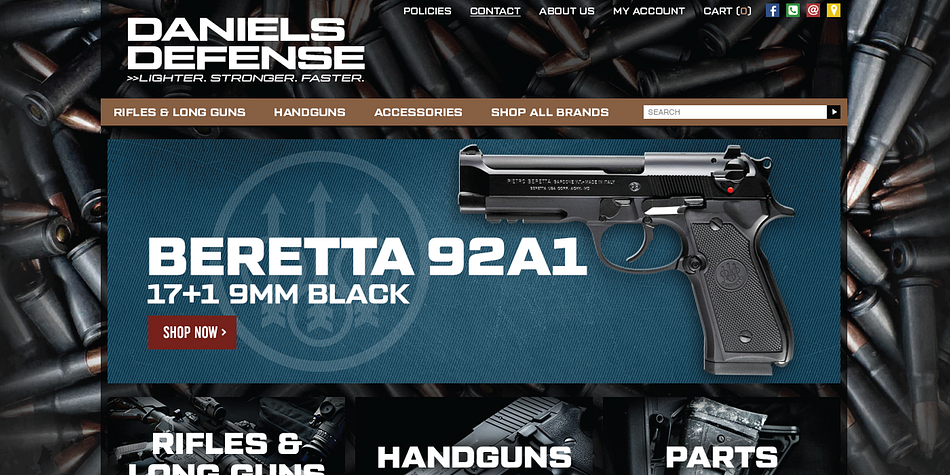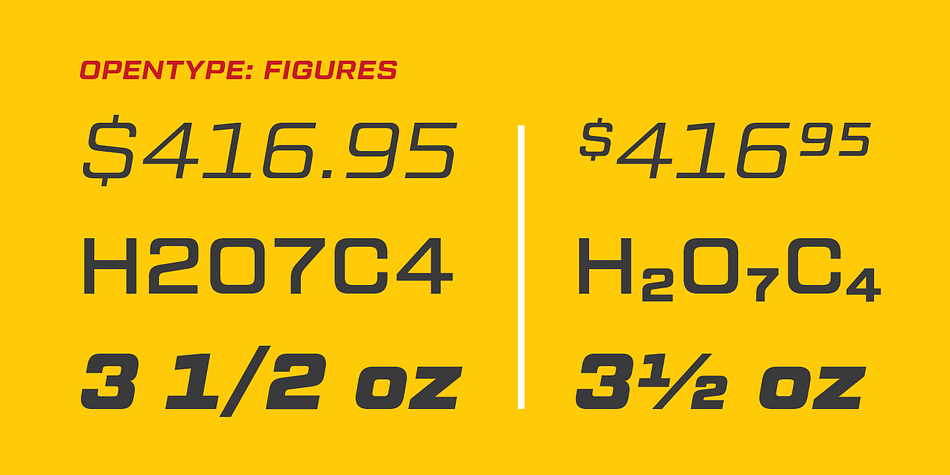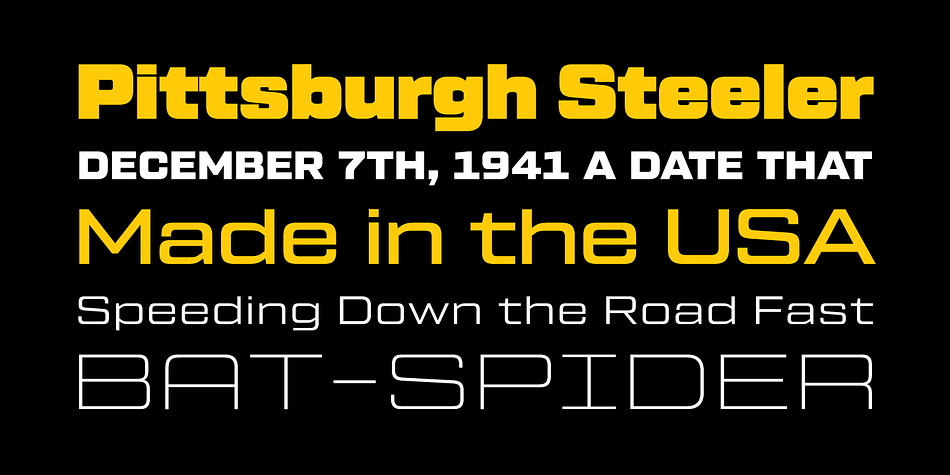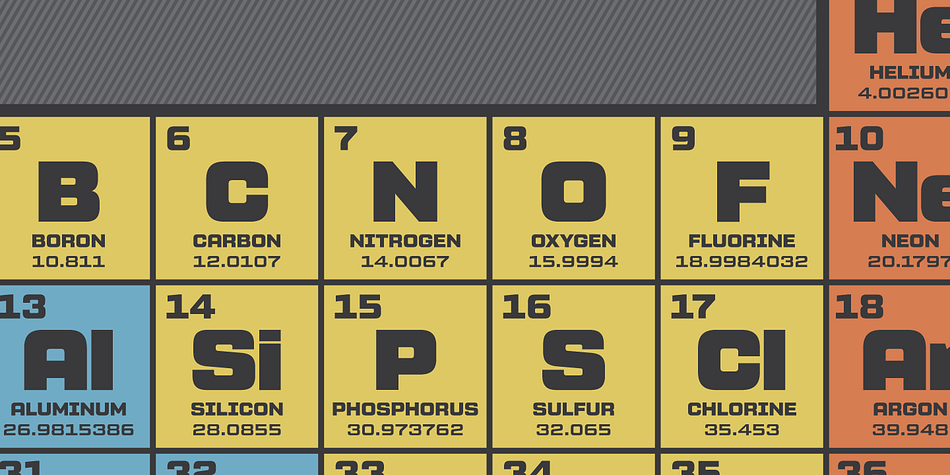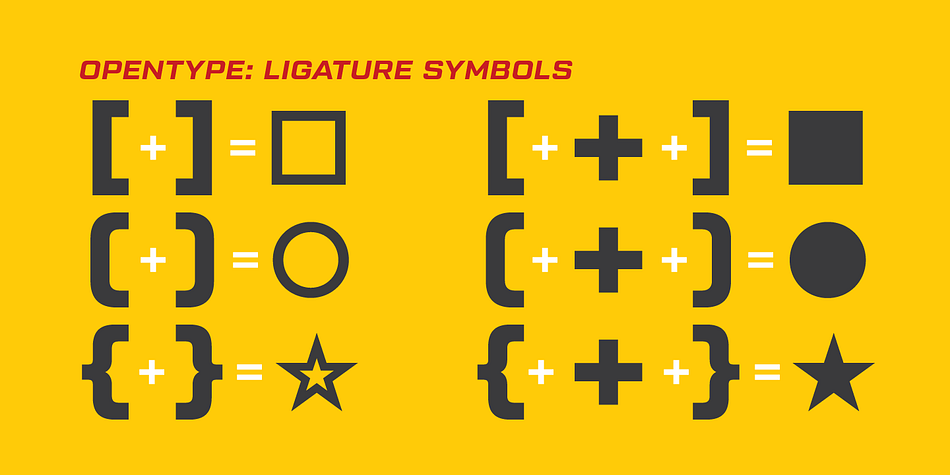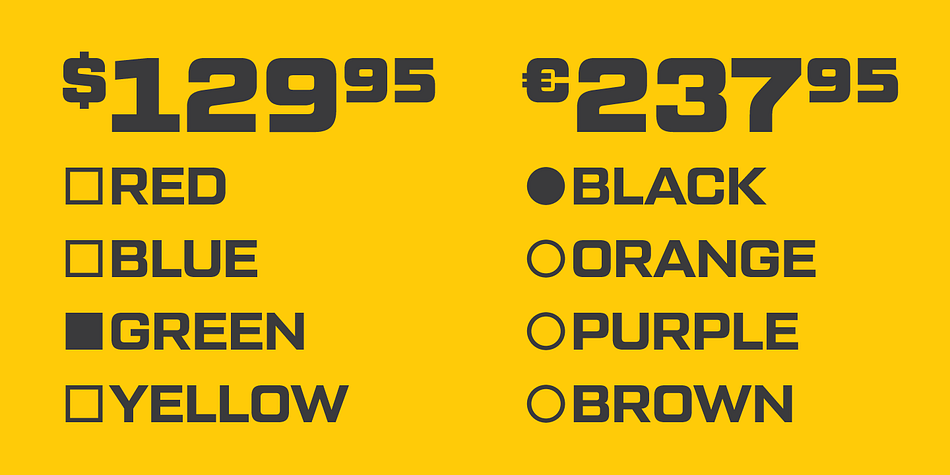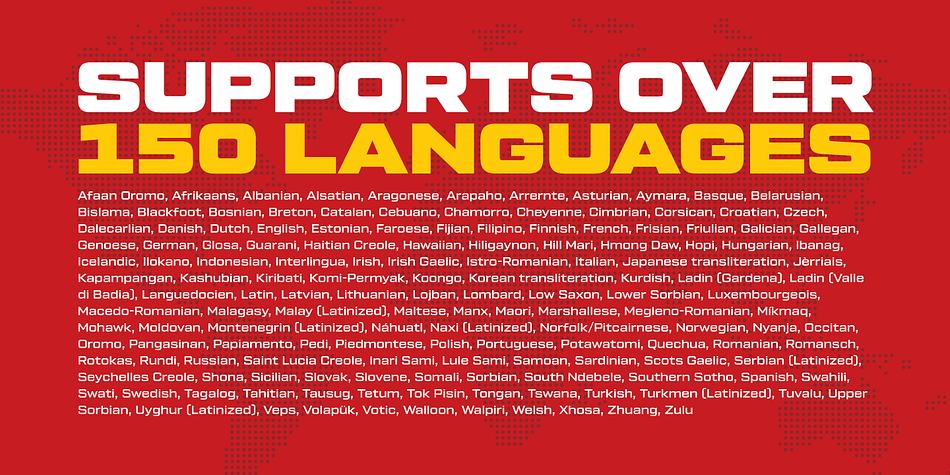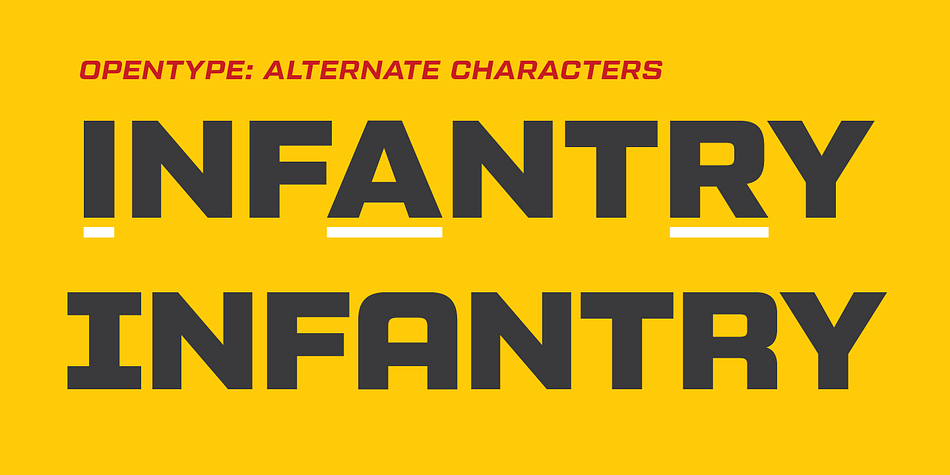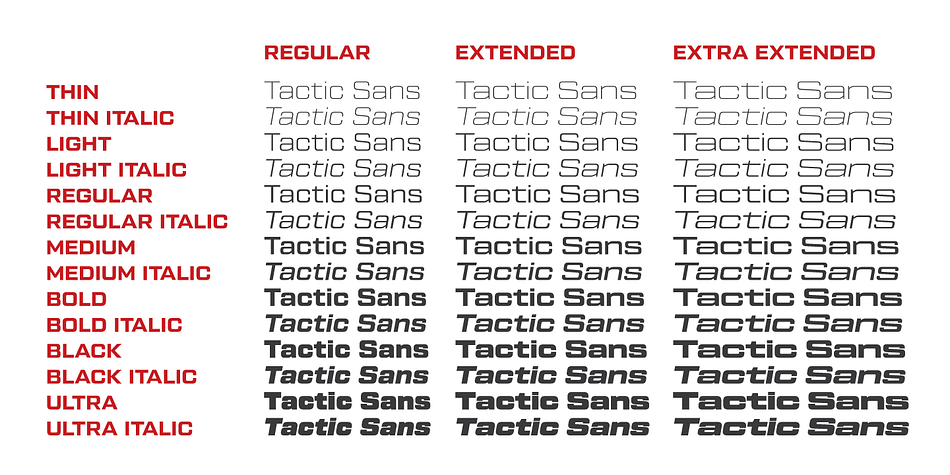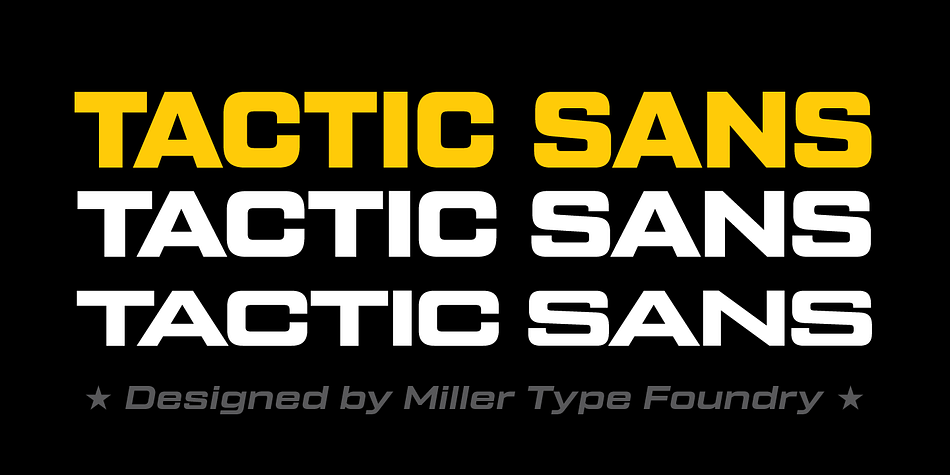
Designed by Richard Miller, Tactic Sans is a sans serif font family. This typeface has forty-two styles and was published by Miller Type Foundry.
Tactic Sans is as versatile as a special forces operator. Seven weights times three widths, all with italics, make Tactic Sans the perfect font to accomplish any mission. Tactic Sans includes many opentype features like alternate characters, tabular lining figures, ligatures (including symbol ligatures), numerators (including $¢£€¥ƒ#%), fractions and more!